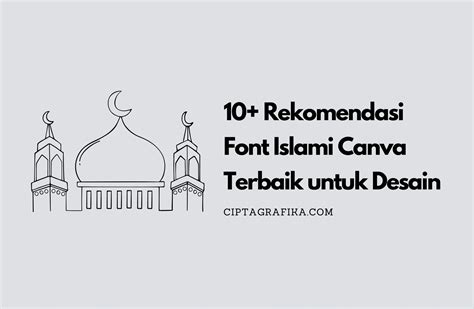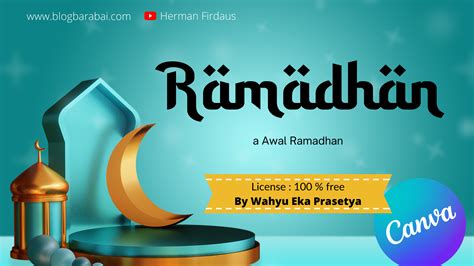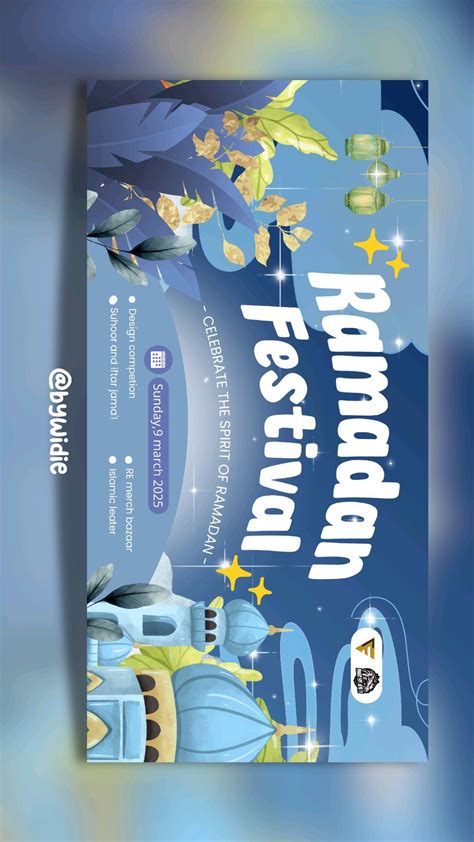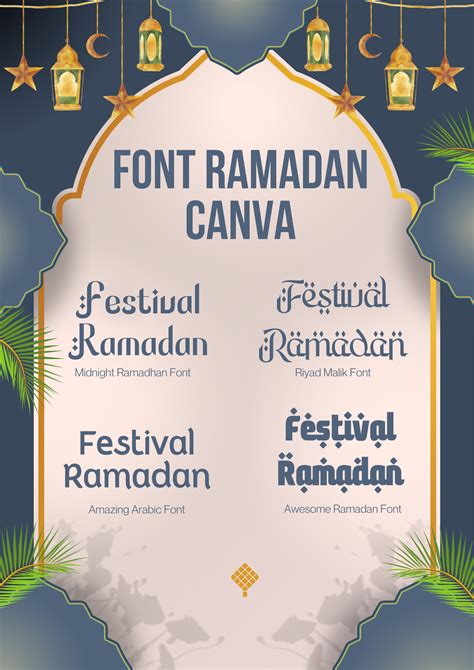
As the blessed month approaches, the quest for the perfect typeface for Ramadan in Canva becomes a top priority for architect, contented creators, and businesses alike. Whether you are crafting social media posts, greeting cards, or event flyers, the correct composition the timbre for your visual communication, blending traditional elegance with modernistic aesthetic. Choosing the right fashion is not simply about decoration; it is about reward the spiritual signification of the season while ensuring your message hit your audience with lucidity and grace. In this guide, we explore how to select the best typefaces within your preferred design interface to make stunning visuals that capture the tone of Ramadan Kareem.
Understanding Typography for Ramadan Designs
When seek for the right esthetic, you postulate to balance legibility with thematic flair. Ramadan designing often evoke feelings of peace, community, and reflection. By take a typeface for Ramadan in Canva that complements your imagination, you can transform a unproblematic graphic into an inspiring part of art.
The Role of Cultural Aesthetics
Typography often bridge the gap between heritage and modern trends. Many users look for scripts that mime Arabic chirography, cognise as Kufic or Thuluth styles. While Canva may not have aboriginal Arabic fonts for every language script, there are several Romance fonts that mimic these flow, intricate shape.
- Serif Font: Excellent for communicate tradition, sapience, and formality.
- Script Fonts: Perfect for personal greeting, invitations, and warm messages.
- Show Fonts: Best used for headline where you want to create a bold impact.
Top Font Categories in Canva
Navigate the brobdingnagian library of typefaces can be overpowering. To simplify your process, categorise your options based on the content you need to protrude.
| Font Category | Best Use Case | Vibration |
| Elegant Script | Ramadan Kareem card | Sophisticated, Warm |
| Traditional Serif | Event invitation | Greco-roman, Formal |
| Geometric Sans | Modern social media graphics | Clean, Minimalist |
✨ Billet: Pair a bold, ornamental display fount for your master headline with a mere, clean sans-serif for body text to keep eminent legibility across all roving devices.
Step-by-Step Selection Process
Follow these steps to find the perfect typography for your approaching projects:
- Name Your Content: Is your graphic a jubilation, a charitable petition, or an event announcement?
- Search Keywords: Use footing like "Calligraphy," "Arabic fashion," "Elegant," or "Handwritten" in the search bar.
- Test Discernability: Always check how the font looks against your background images or solid color overlays.
- Limit Your Selection: Avoid employ more than two different face in a individual design to ensure a professional look.
🌟 Line: Always check the kerning and line spacing of your choose fonts, as script-based way ofttimes require manual registration to ensure missive do not overlap awkwardly.
Enhancing Your Visual Hierarchy
Apply a baptistry for Ramadan in Canva effectively expect an sympathy of visual hierarchy. You desire the watcher's eye to trip from the most significant info to the indorse detail seamlessly.
- Primary Headline: Use your most cosmetic baptistry hither.
- Sub-headline: Use a igniter weight version of your main typeface or a subtle lowly case.
- Body Schoolbook: Use a neutral, extremely decipherable face to explain details such as dates, times, or locations.
Creating beautiful content for the holy month is a rewarding way to share message of serenity and reflection with your community. By focusing on legible, thematic, and well-spaced typography, you ensure your designs are both respectful and visually attract. Remember that the better designs are those that serve the content rather than dwarf it, countenance your message to shine through with sincerity. Start by experimenting with different font combinations today to see which title better resonate with your singular originative vision during this particular time of year.